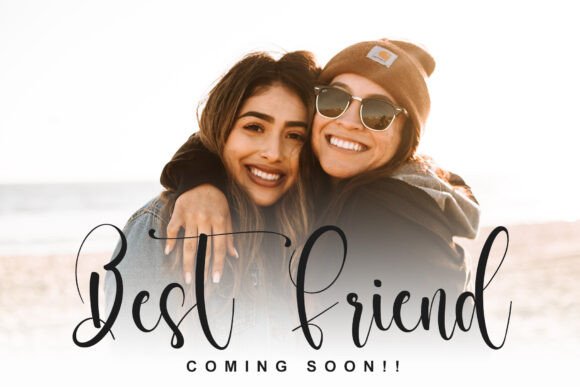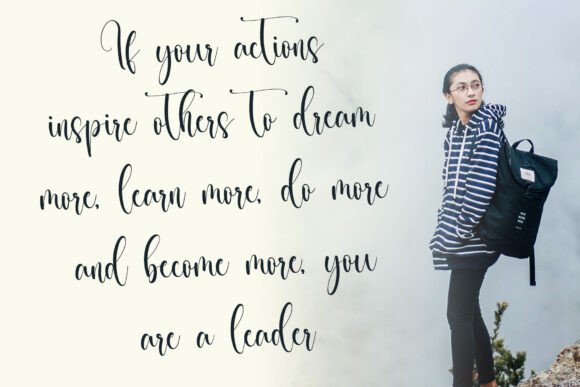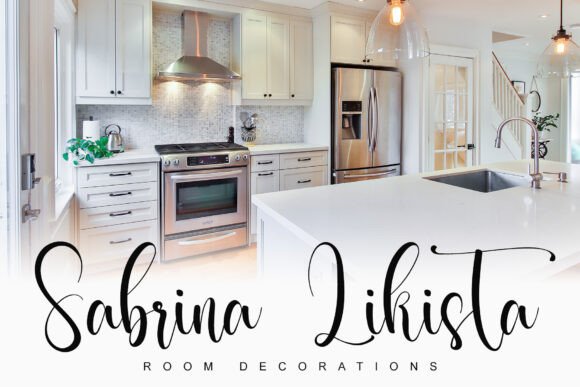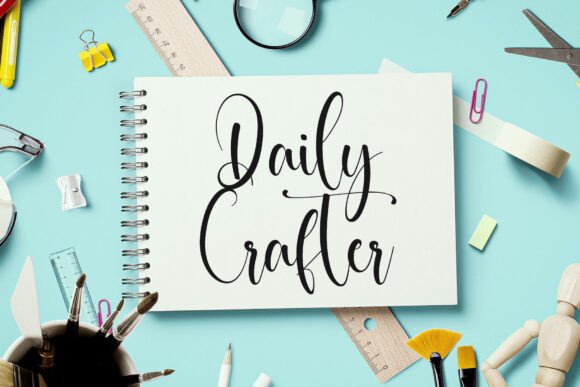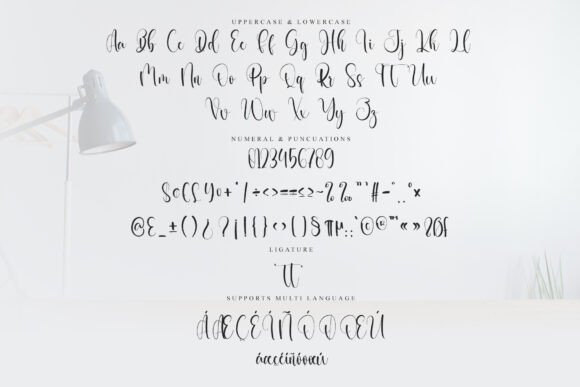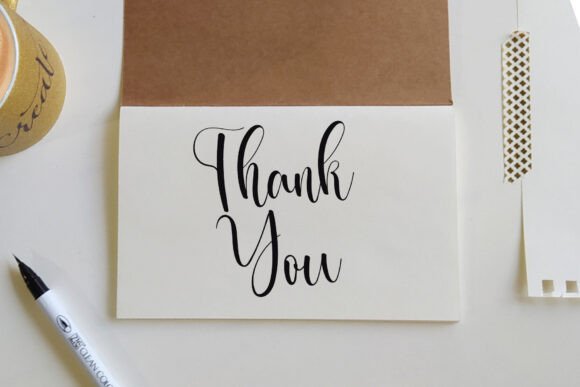
Brittany Writing Font: Elevate Your Designs with Elegance and Timelessness
In the world of typography, fonts play a crucial role in conveying the tone and personality of a brand or design. For those seeking a script that exudes class, sophistication, and a touch of nostalgia, the Brittany Writing Font is an exceptional choice. This stunning font combines the fluidity of script handwriting with a bold, timeless vintage touch, making it perfect for designers and crafters looking to create a lasting impression.
The Beauty of Brittany Writing Font
Brittany Writing Font is a masterful blend of elegance and power. Its fluid strokes, graceful curves, and dynamic flow evoke a sense of refinement and luxury, making it ideal for projects that demand a high level of sophistication. Whether you’re looking to create a stylish signature, a branding design, or a nostalgic vintage aesthetic, this font delivers elegance and uniqueness effortlessly.
Key Features of Brittany Writing Font
- Fluid Strokes: The font’s fluid strokes give it a natural, handwritten feel that’s both elegant and approachable.
- Graceful Curves: The gentle curves and swirls of the font add a touch of sophistication and refinement.
- Dynamic Flow: The font’s dynamic flow makes it perfect for creating a sense of movement and energy in your designs.
- Timeless Vintage Touch: The font’s vintage touch adds a sense of nostalgia and timelessness, making it perfect for projects that require a classic look.
Brittany Writing Font is a versatile script that’s perfect for a wide range of design applications. Whether you’re a designer looking to create a stunning branding design, or a crafter seeking to add a touch of elegance to your DIY projects, this font is an excellent choice.
Branding and Advertising
In the world of branding and advertising, a font can make or break a design. Brittany Writing Font is perfect for creating a sophisticated and memorable brand identity. Its unique blend of elegance and power makes it ideal for:
- Logos and signage
- Packaging and labeling
Crafting and DIY Projects
For crafters and DIY enthusiasts, Brittany Writing Font is a great choice for adding a touch of elegance to your projects. Use it for:
- Handmade cards and invitations
- Journaling and scrapbooking
- Custom signs and decorations
Tips for Using Brittany Writing Font
To get the most out of Brittany Writing Font, here are a few tips to keep in mind:
- Use it sparingly: While the font is elegant and sophisticated, using it sparingly can make it more effective.
- Pair it with contrasting fonts: Pairing the font with contrasting fonts can create a visually appealing design.
- Experiment with colors: The font looks great in a range of colors, so don’t be afraid to experiment and find the perfect hue for your design.
Brittany Writing Font is a stunning script that exudes class, sophistication, and timelessness. Its unique blend of elegance and power makes it perfect for designers and crafters looking to create a lasting impression. Whether you’re looking to create a stylish signature, a branding design, or a nostalgic vintage aesthetic, this font delivers elegance and uniqueness effortlessly. With its fluid strokes, graceful curves, and dynamic flow, Brittany Writing Font is sure to elevate your designs to the next level.